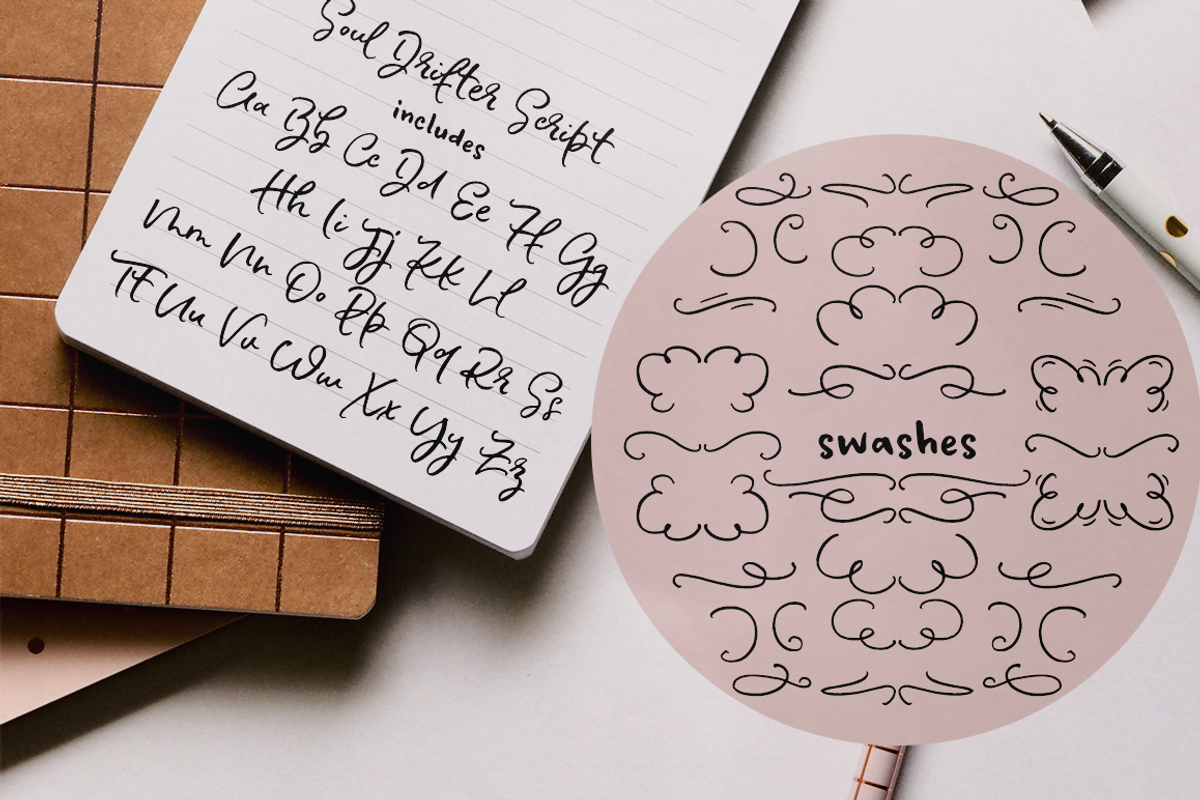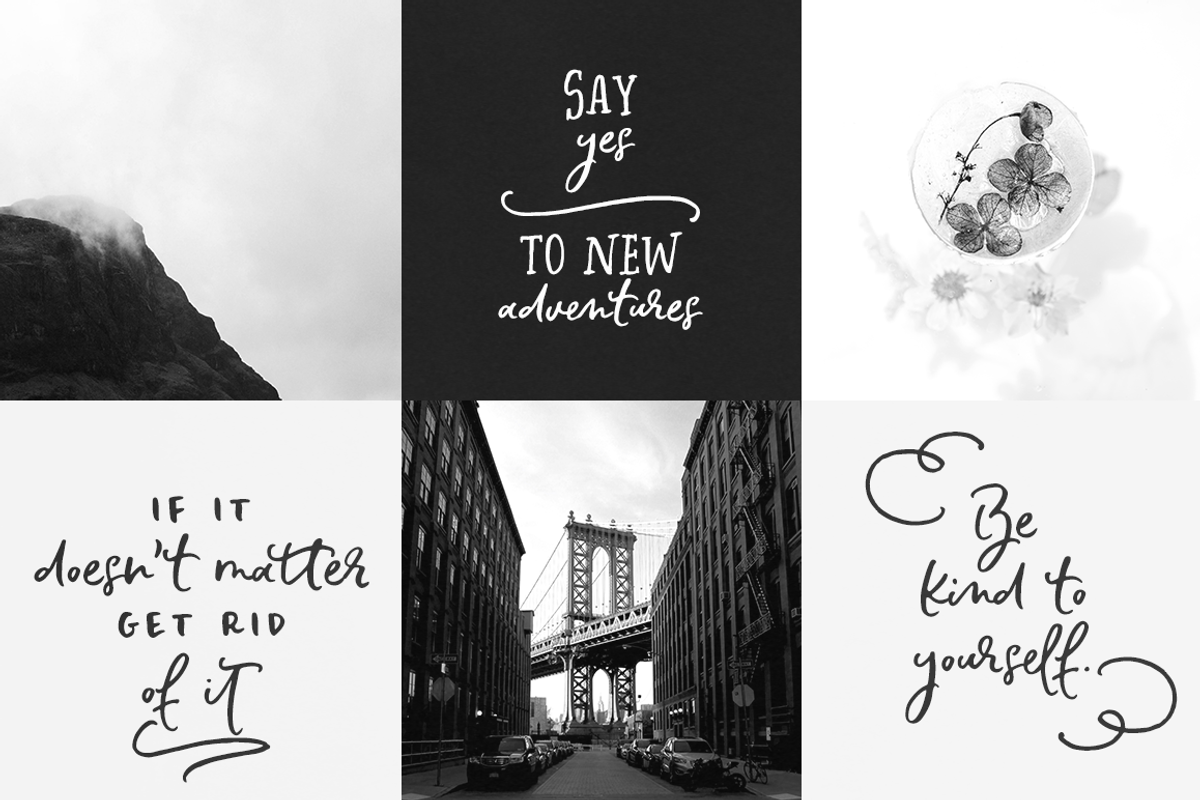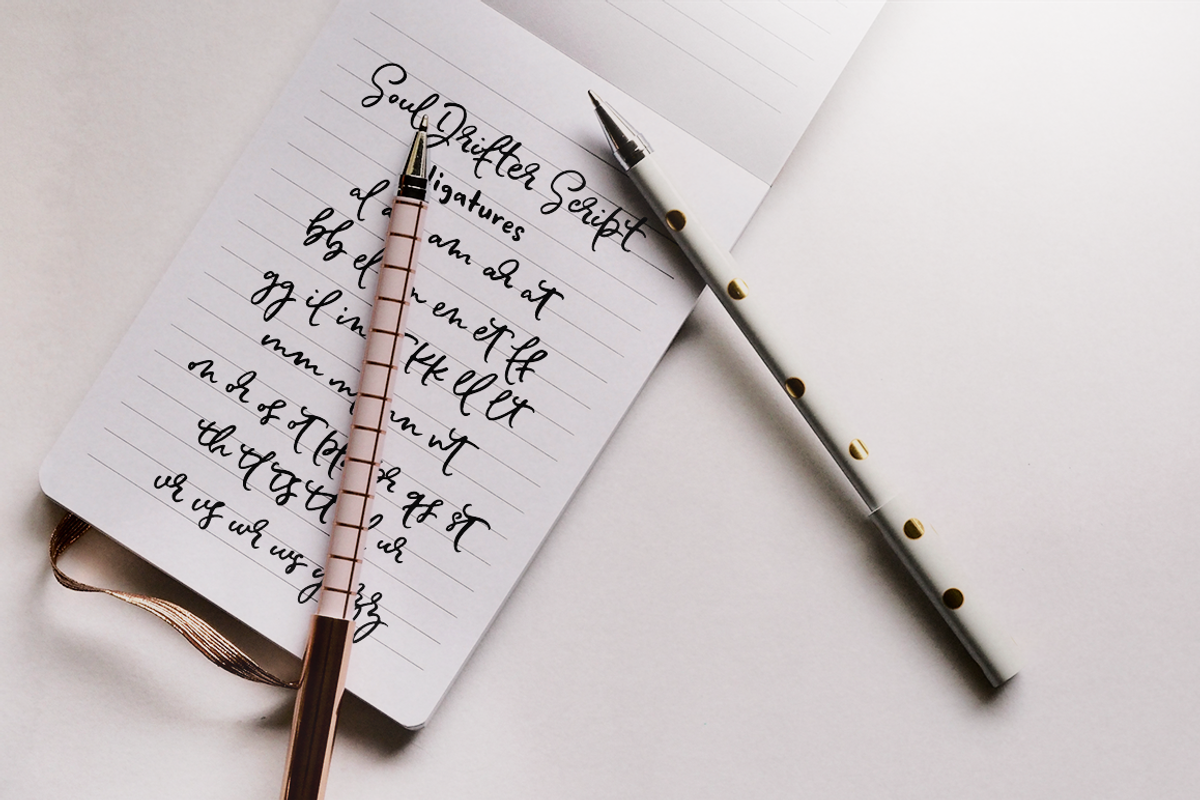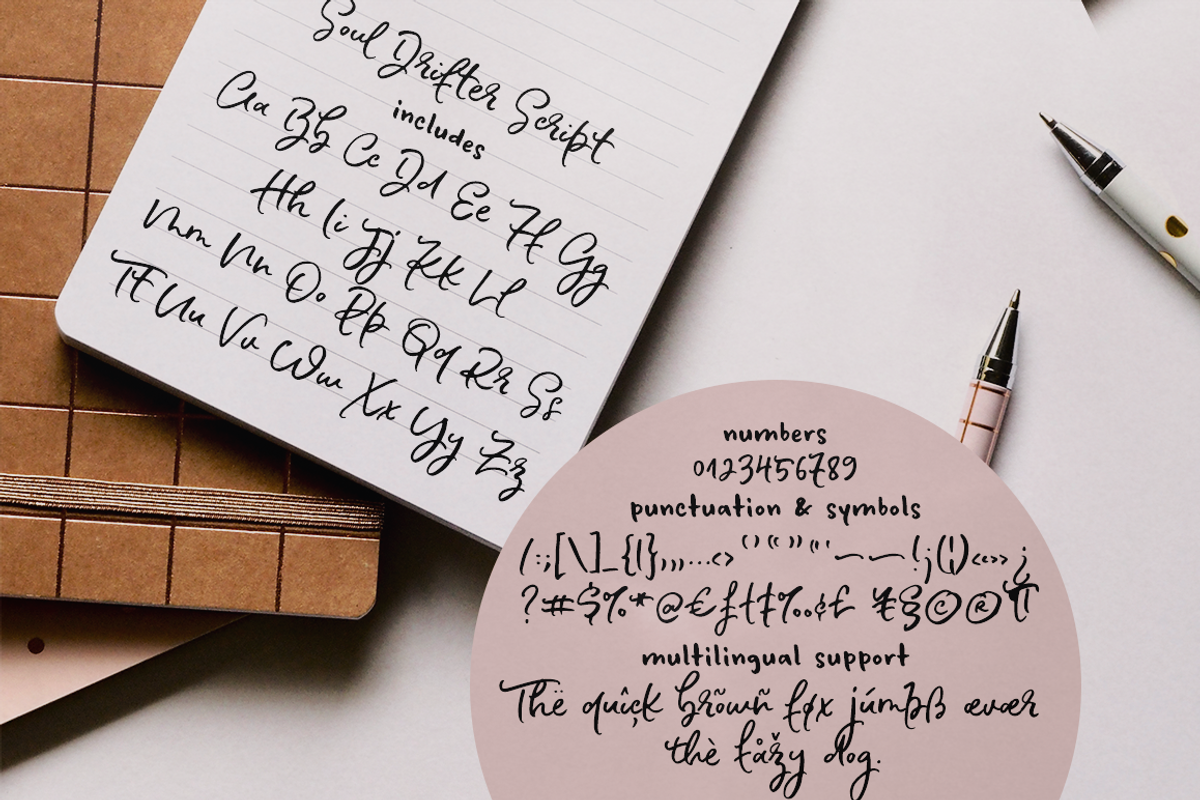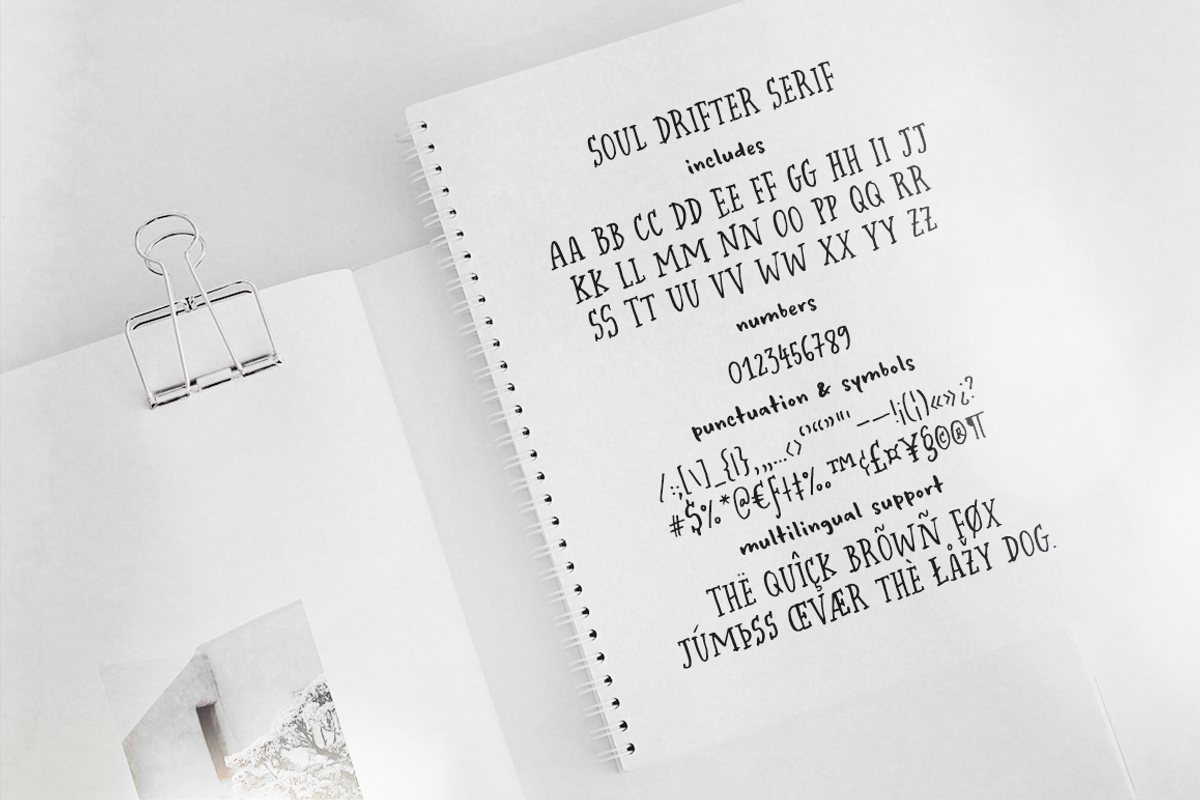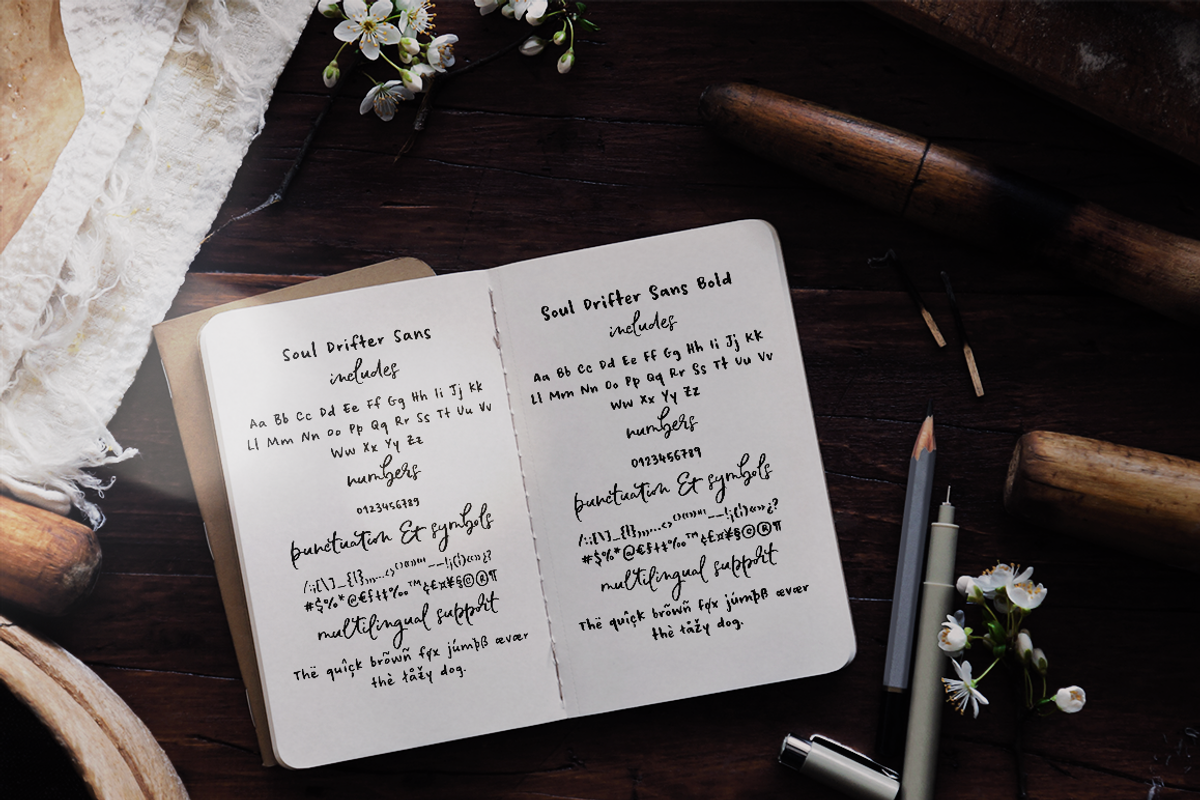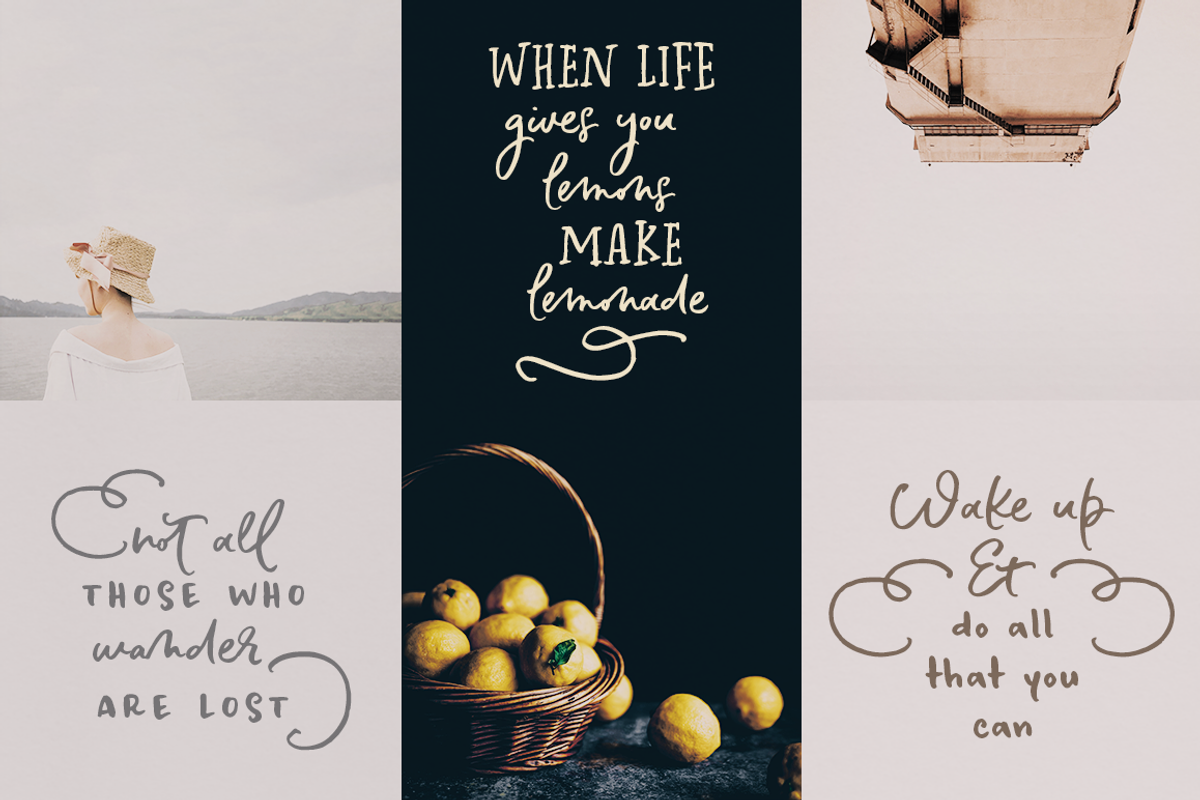
Soul Drifter handwritten brush font
Soul Drifter is a handwritten font collection of 6 fonts that were designed to go together nicely. All six fonts were drawn using the same brush pen, so that their weight and design are consistent, and you can mix and match them easily.
Soul Drifter includes:
a brush script font in regular and slant versions, with over 100 ligatures
a matching set of swashes to ornament your texts and designs
a cute sans font in two weights, regular and bold (true bold, drawn separately)
a tall serif font in all caps, with two sets of caps
All you need for beautiful and easy designs with a hand-lettered feel, such as postcards and notes, creating logotypes, social media posts, branding and packaging, etc.